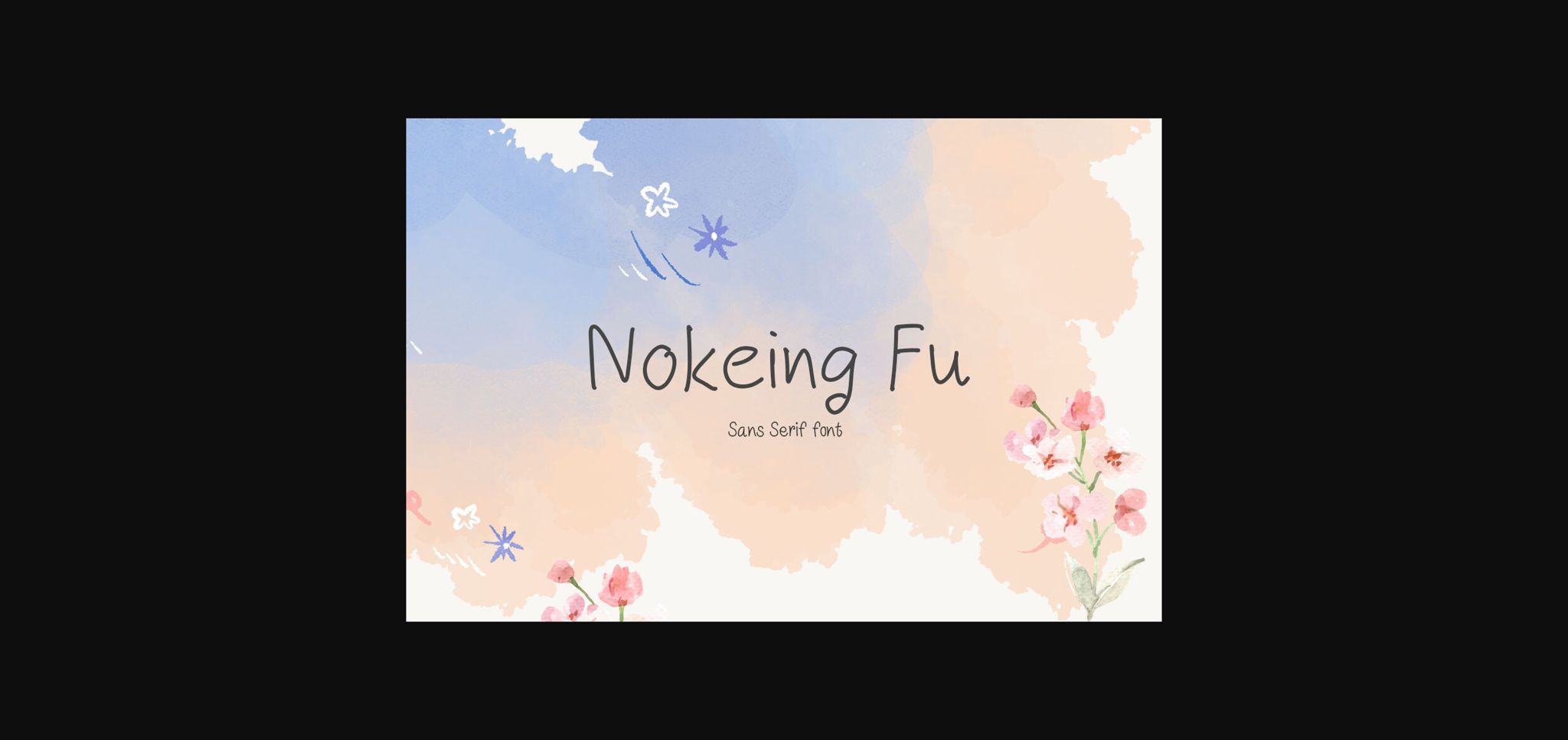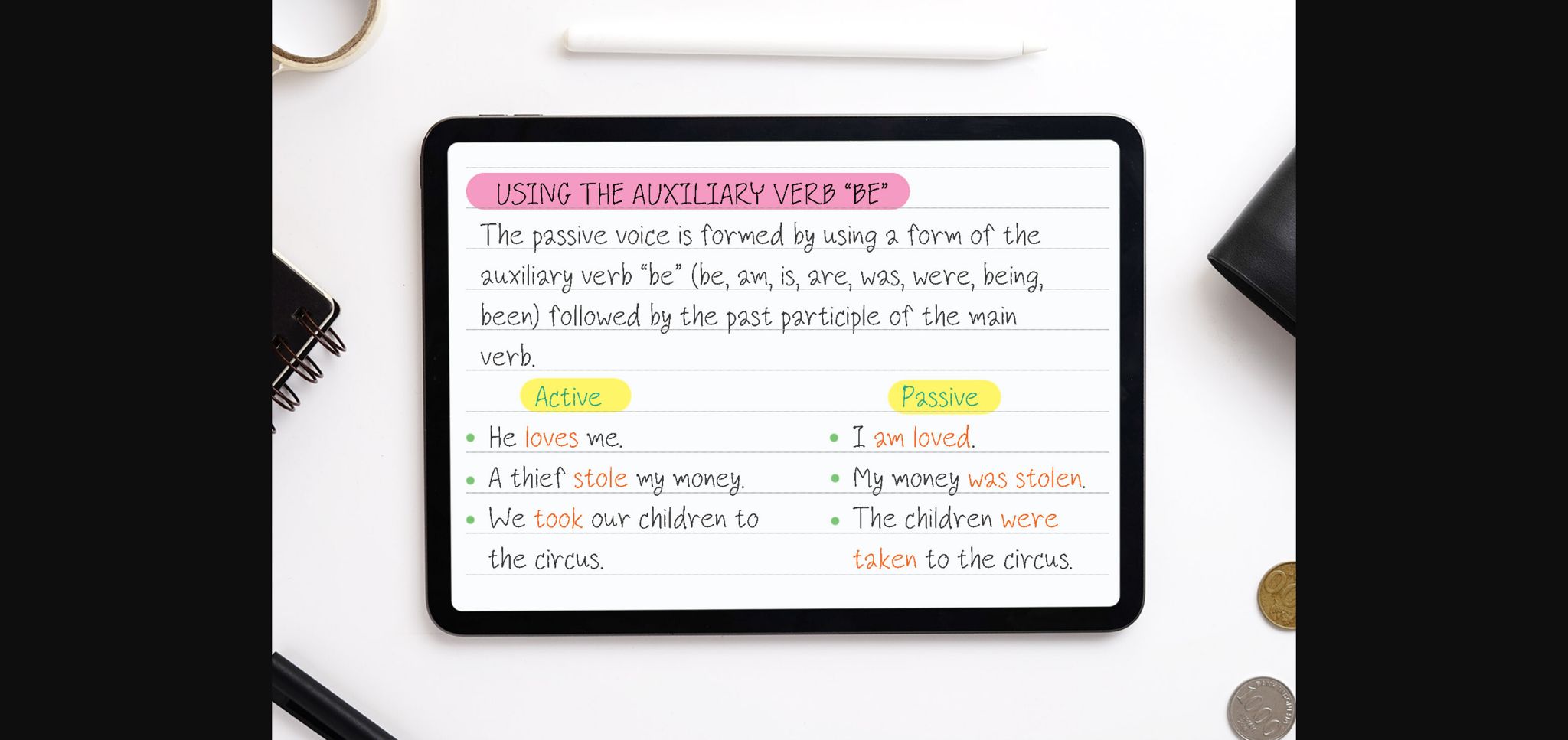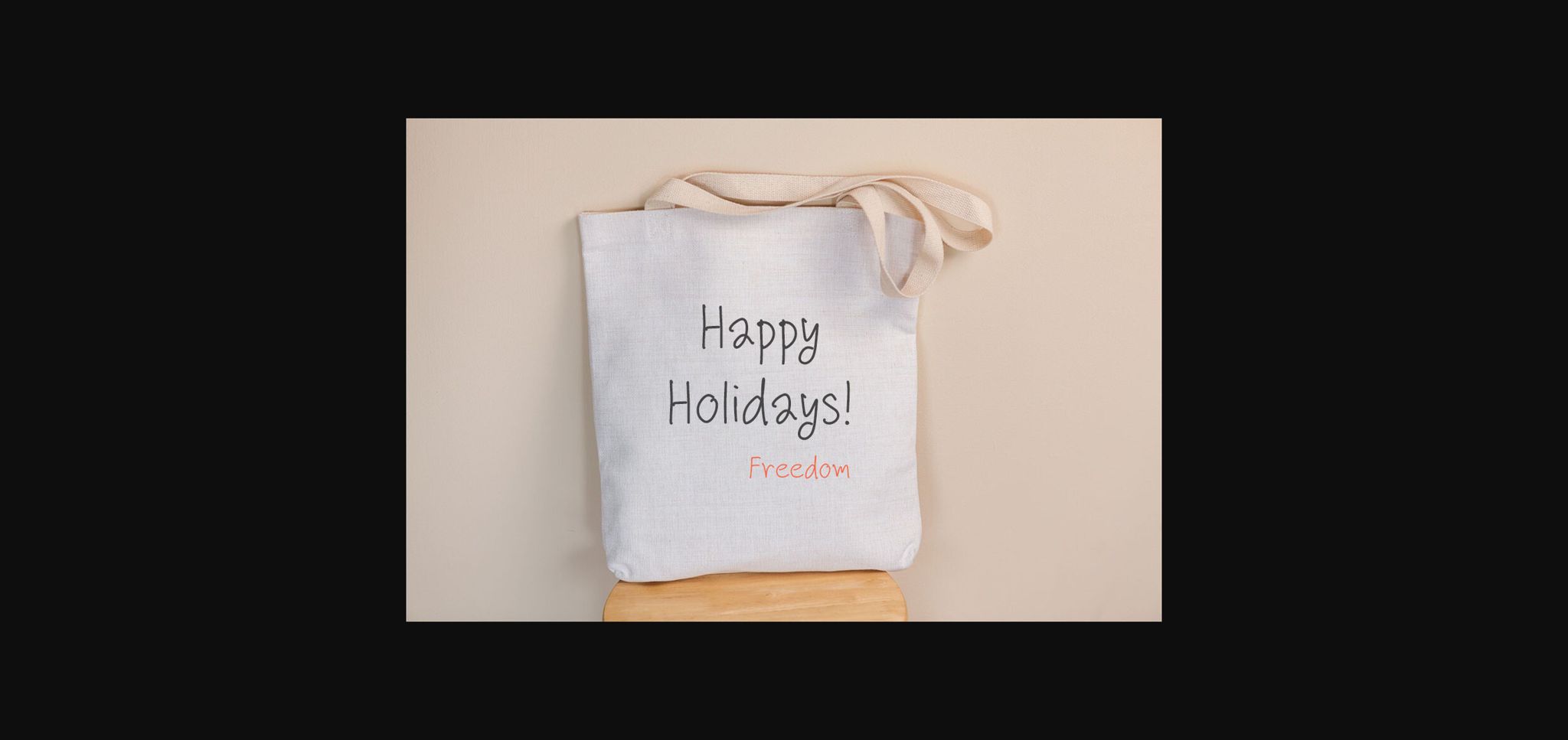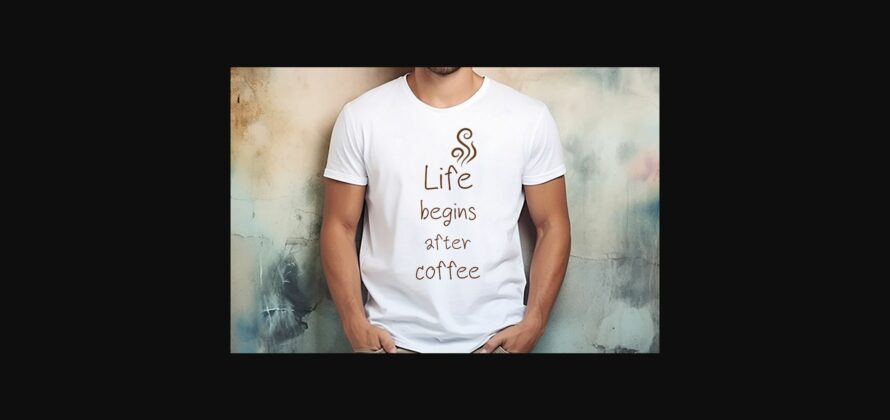
Nokeing Fu Font
About Nokeing Fu Font
Nokeing Fu is a playful, a bit quirky and friendly sans serif font. It would be awesome to your fun projects or diary planner, on wedding invitations, thank you cards, quotes, greeting cards, logos, posters, blogs, bag, T Shirt, clothing and other designs.